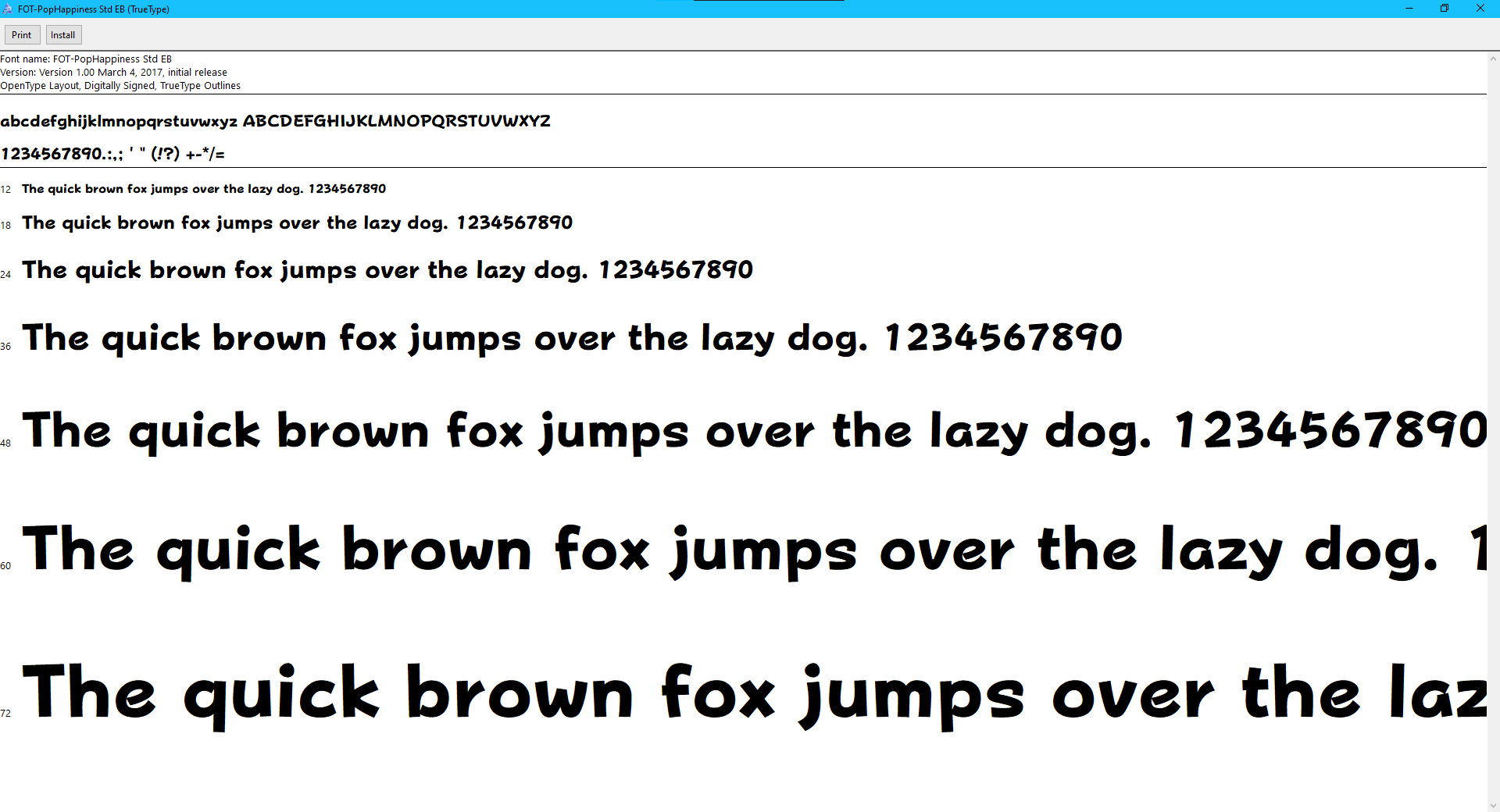
Pop Happiness Font Download - Last edited on 14th april 2022. Created on 14th april 2022. The gothic styles, youthful and dynamic. Click to find the best 16 free fonts in the happiness style. Every font is free to. Web 1 to 15 of 16 results. Web this is a list of typefaces used in games and related media within the super mario franchise. Web fot pop happiness std stripped extrabold version 1.000. Fot pop happiness std stripped. (pophappiness) super mario sunshine text font.
Last edited on 14th april 2022. Click to find the best 16 free fonts in the happiness style. Created on 14th april 2022. Fot pop happiness std stripped. Web this is a list of typefaces used in games and related media within the super mario franchise. The gothic styles, youthful and dynamic. (pophappiness) super mario sunshine text font. Web fot pop happiness std stripped extrabold version 1.000. Web 1 to 15 of 16 results. Every font is free to.
(pophappiness) super mario sunshine text font. Last edited on 14th april 2022. The gothic styles, youthful and dynamic. Created on 14th april 2022. Web this is a list of typefaces used in games and related media within the super mario franchise. Web fot pop happiness std stripped extrabold version 1.000. Web 1 to 15 of 16 results. Every font is free to. Fot pop happiness std stripped. Click to find the best 16 free fonts in the happiness style.
Last edited on 14th april 2022. (pophappiness) super mario sunshine text font. Every font is free to. Web fot pop happiness std stripped extrabold version 1.000. Fot pop happiness std stripped.
Fot pop happiness std stripped. Click to find the best 16 free fonts in the happiness style. The gothic styles, youthful and dynamic. Last edited on 14th april 2022. Created on 14th april 2022.
Last edited on 14th april 2022. Click to find the best 16 free fonts in the happiness style. (pophappiness) super mario sunshine text font. Web 1 to 15 of 16 results. The gothic styles, youthful and dynamic.
The gothic styles, youthful and dynamic. Web 1 to 15 of 16 results. Click to find the best 16 free fonts in the happiness style. Every font is free to. Fot pop happiness std stripped.
Popハッピネス EB Fontworks
Every font is free to. Web fot pop happiness std stripped extrabold version 1.000. (pophappiness) super mario sunshine text font. The gothic styles, youthful and dynamic. Click to find the best 16 free fonts in the happiness style.
Pop Happiness EB Fontworks
The gothic styles, youthful and dynamic. Web fot pop happiness std stripped extrabold version 1.000. Web this is a list of typefaces used in games and related media within the super mario franchise. Fot pop happiness std stripped. Web 1 to 15 of 16 results.
(PopHappiness) Super Mario Sunshine Text Font by wingedyoshi14 on
Web this is a list of typefaces used in games and related media within the super mario franchise. Every font is free to. Click to find the best 16 free fonts in the happiness style. Created on 14th april 2022. Fot pop happiness std stripped.
Created on 14th april 2022. (pophappiness) super mario sunshine text font. Click to find the best 16 free fonts in the happiness style. Web fot pop happiness std stripped extrabold version 1.000. The gothic styles, youthful and dynamic.
Pop Happiness Font [Pokémon Legends Arceus] [Mods]
The gothic styles, youthful and dynamic. Created on 14th april 2022. Web 1 to 15 of 16 results. Click to find the best 16 free fonts in the happiness style. Web this is a list of typefaces used in games and related media within the super mario franchise.
(pophappiness) super mario sunshine text font. Web fot pop happiness std stripped extrabold version 1.000. Every font is free to. Fot pop happiness std stripped.
The Gothic Styles, Youthful And Dynamic.
Web this is a list of typefaces used in games and related media within the super mario franchise. Created on 14th april 2022. Web 1 to 15 of 16 results. Last edited on 14th april 2022.